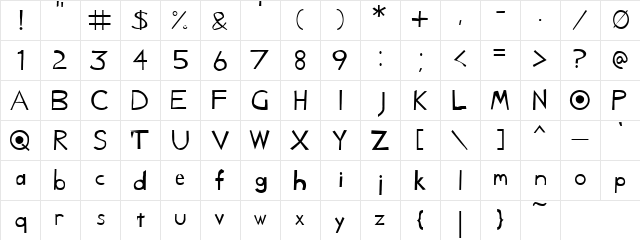
Kagadas Regular
Design Context for Kagadas Typeface
Kagadas takes a measured approach to typography — its balanced proportions and neutral character make it a reliable workhorse for both digital and print work.